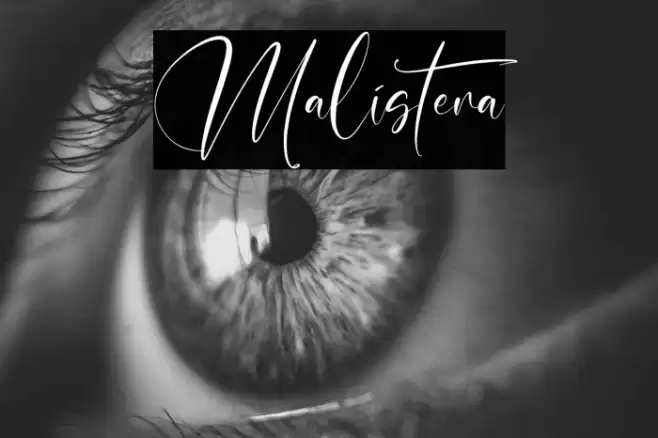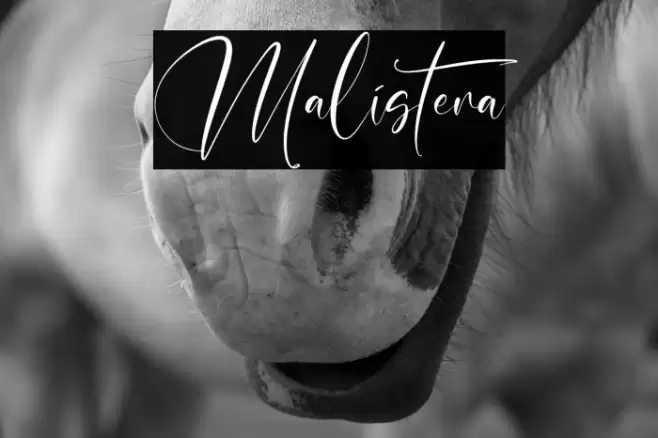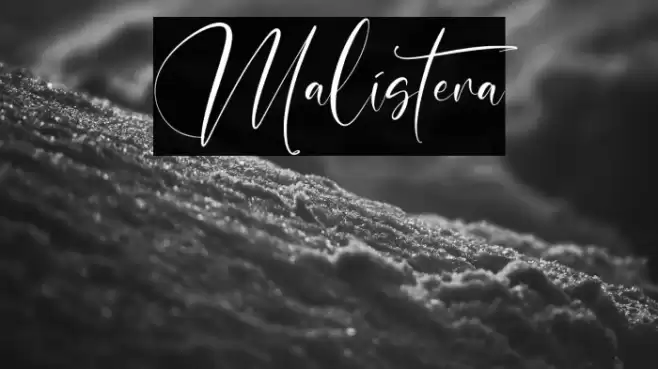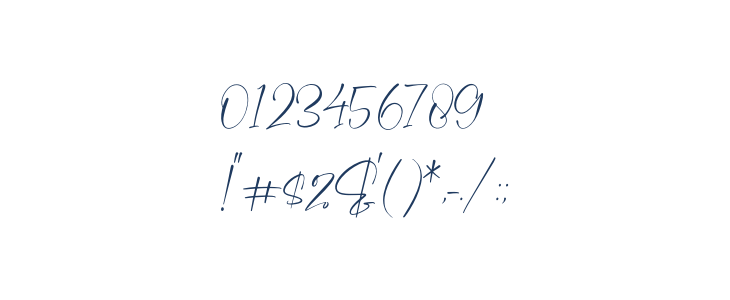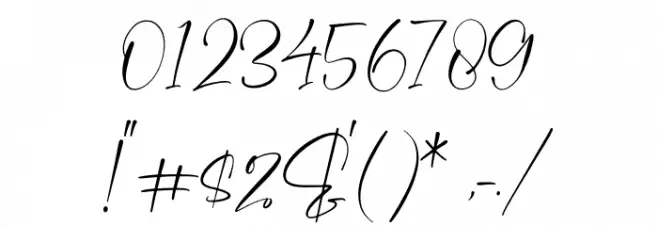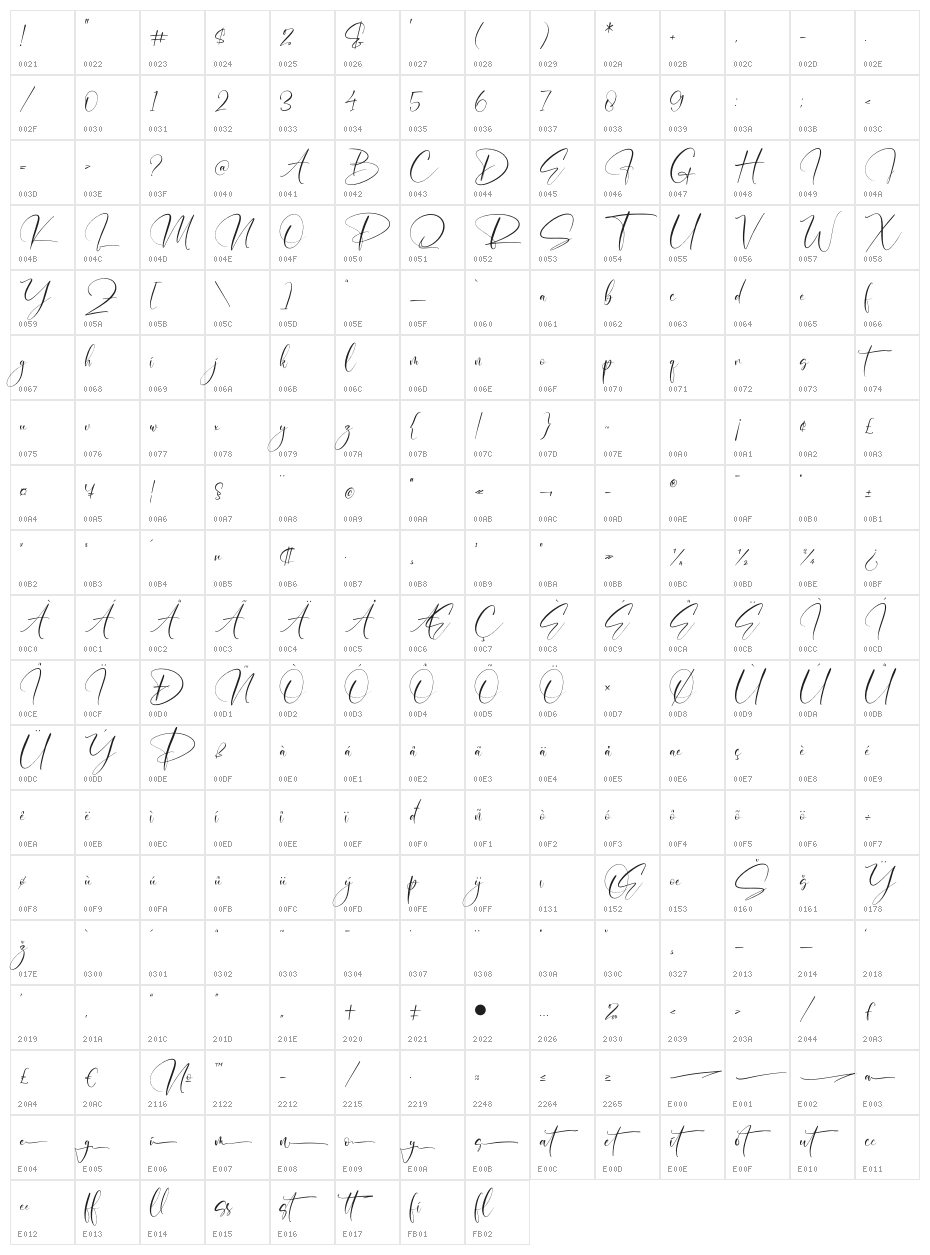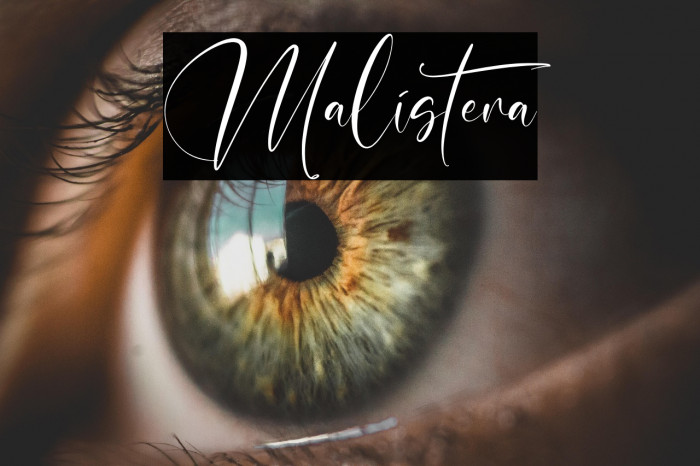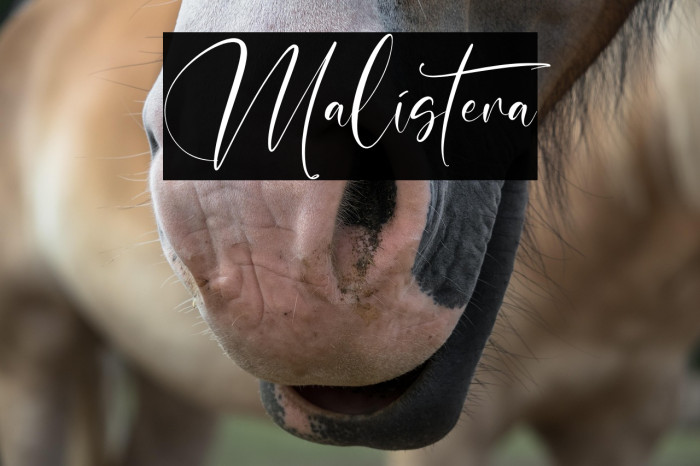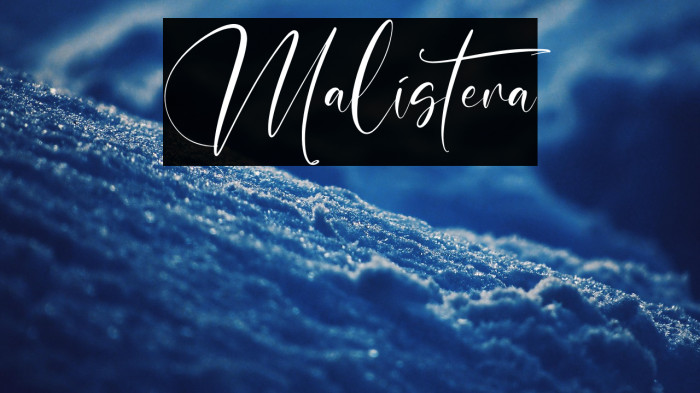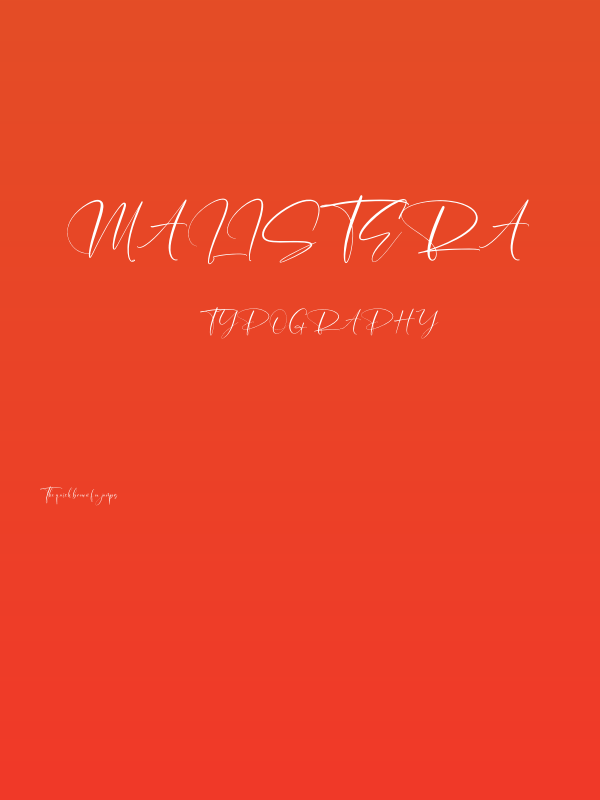
Malistera Font
Malistera Description
This elegant script font features a flowing, cursive style with high contrast between thick and thin strokes. The uppercase letters are characterized by sweeping curves and loops, giving a sense of movement and grace. The lowercase letters maintain a consistent style, with some characters extending below the baseline, adding to the font's dynamic appearance. The numerals and special characters are designed to match the overall aesthetic, ensuring a cohesive look. This font is perfect for projects that require a touch of sophistication and elegance, such as wedding invitations, luxury branding, and high-end product packaging.
An elegant, flowing script font with high contrast and graceful curves from Uncategorized fonts.
- Proposed Projects: Ideal for wedding invitations, luxury branding, and elegant product packaging.
- Overall Style: Elegant
- Use Case: Logos, Invitations, Branding